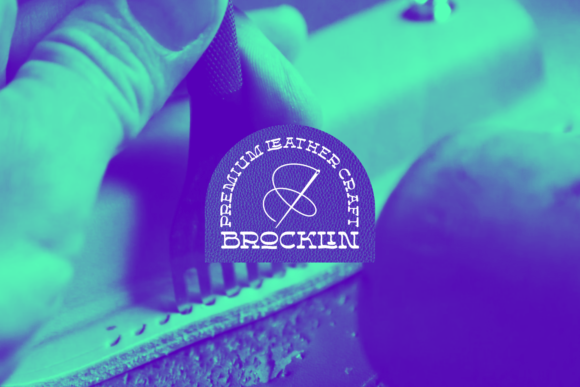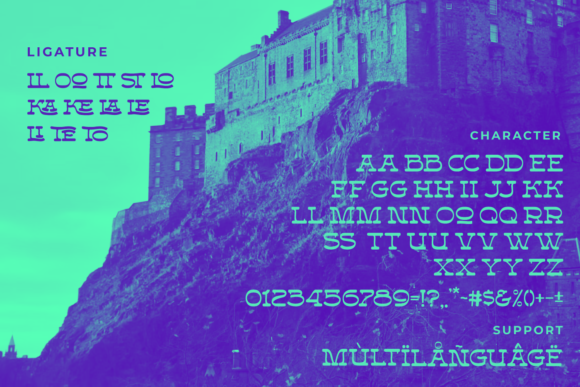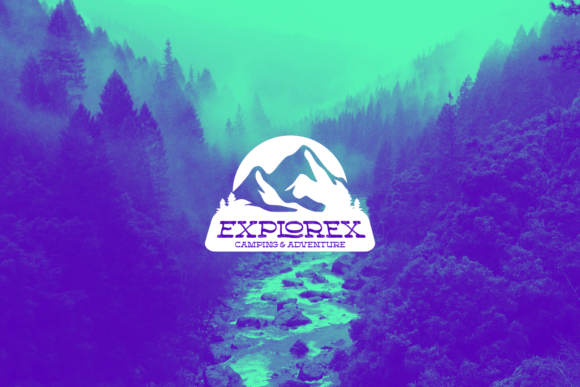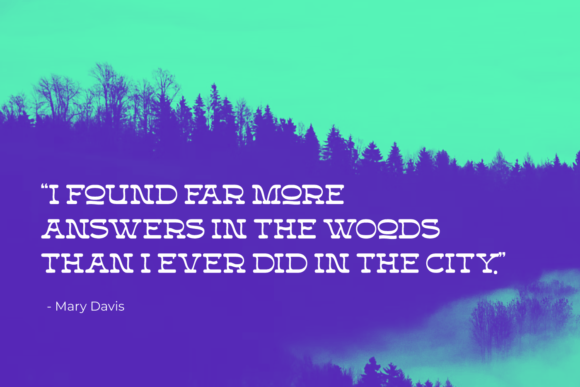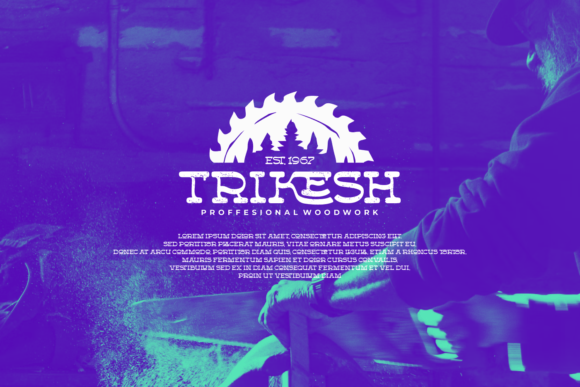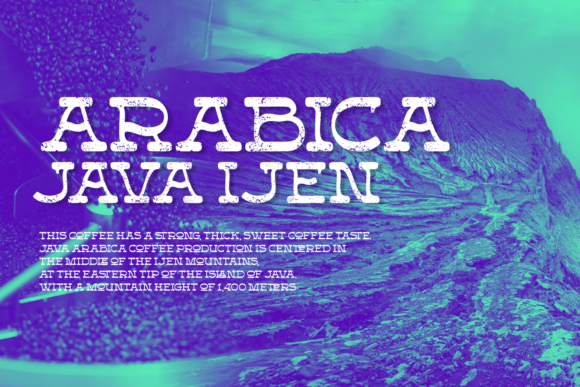
Forteast Font: Elevate Your Designs with a Stylish Slab Serif
In the world of typography, fonts play a crucial role in conveying the tone and personality of a design. For designers and crafters looking to add a touch of sophistication and style to their projects, Forteast Font is an excellent choice. This stunning slab serif font boasts smooth curves and a fashionable aesthetic, making it perfect for a wide range of applications.
What is Forteast Font?
Forteast Font is a stylish slab serif font designed to bring a touch of elegance and refinement to any design project. Its smooth curves and sleek lines make it an ideal choice for designers looking to create visually appealing and cohesive designs. Whether you’re working on branding projects, logos, wedding designs, social media posts, or product packaging, Forteast Font is sure to impress.
Key Features of Forteast Font
- Stylish Slab Serif Design: Forteast Font features a stylish slab serif design with smooth curves, giving it a unique and fashionable look.
- Wide Range of Applications: Forteast Font is perfect for branding projects, logos, wedding designs, social media posts, advertisements, product packaging, product designs, labels, photography, watermarks, invitations, stationery, and any project that requires a fashionable touch.
Why Choose Forteast Font?
With so many fonts available, why choose Forteast Font? Here are just a few reasons why designers and crafters love this stylish slab serif font:
- Unique and Memorable: Forteast Font’s unique design makes it stand out from the crowd, ensuring your designs are memorable and eye-catching.
- Versatile: This font is incredibly versatile, making it suitable for a wide range of projects and applications.
How to Use Forteast Font
Using Forteast Font is simple and straightforward. Here are a few tips to get you started:
- Branding Projects: Use Forteast Font to create stunning brand identities, including logos, business cards, and letterheads.
- Wedding Designs: Add a touch of elegance to your wedding designs, including invitations, stationery, and wedding signs.
- Social Media Posts: Use Forteast Font to create eye-catching social media posts that stand out from the crowd.
- Product Packaging: Elevate your product packaging with Forteast Font, making your products look professional and high-end.
Tips and Tricks for Working with Forteast Font
Here are a few tips and tricks to help you get the most out of Forteast Font:
- Experiment with Ligatures: Forteast Font’s PUA encoding makes it easy to access ligatures and glyphs, adding an extra layer of customization to your designs.
- Play with Font Sizes: Don’t be afraid to experiment with different font sizes to create visual interest and hierarchy in your designs.
- Pair with Other Fonts: Forteast Font pairs well with a range of other fonts, so don’t be afraid to experiment with different combinations to find the perfect look for your project.
Forteast Font is a stylish and versatile slab serif font that’s perfect for designers and crafters looking to add a touch of sophistication and style to their projects. With its smooth curves, PUA encoding, and wide range of applications, Forteast Font is an excellent choice for anyone looking to elevate their designs. So why wait? Download Forteast Font today and start creating stunning designs that stand out from the crowd!